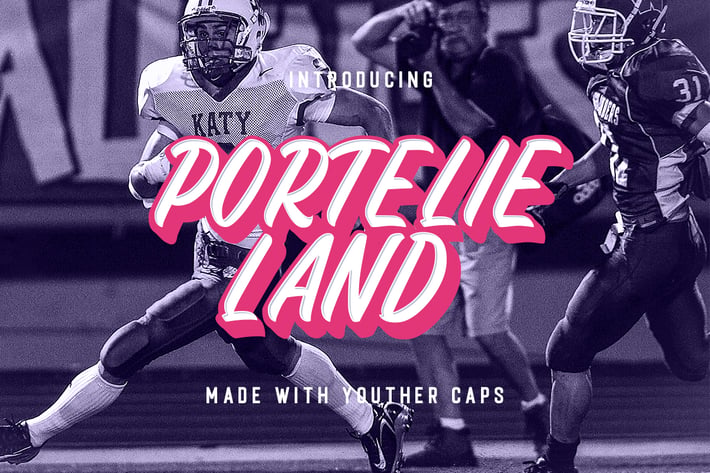
Youther Caps - Fun Layered Font
Introducing, Youther Caps. A simple and casual sans serif typeface. This item consist of 3 fonts layer that can make your text will stand out. It is really perfect for you who needs a typeface for especially logotype, apparel, invitation, branding, packaging, advertising etc. This typeface has features :
Uppercase, lowercase, punctuations
Symbols & numerals